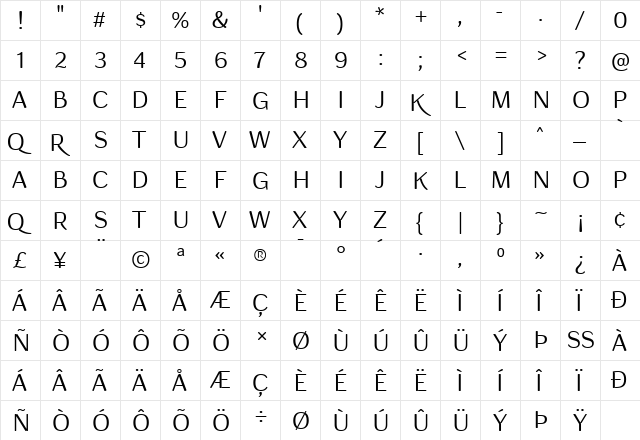
Conceal Regular Font Preview
Conceal Regular
Conceal Regular Font Details
| Foundry | Typodermic |
Design Context for Conceal Typeface
Conceal is a composed and adaptable typeface that performs quietly and consistently across a wide range of design contexts.